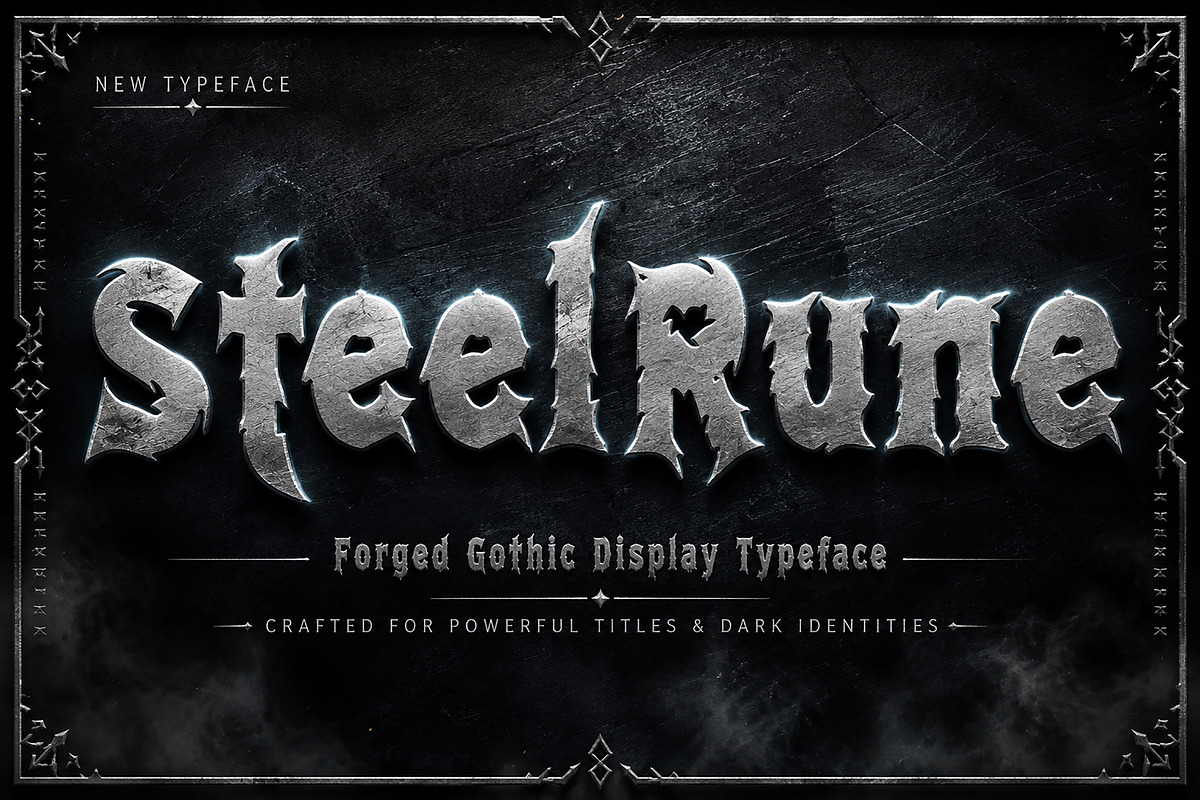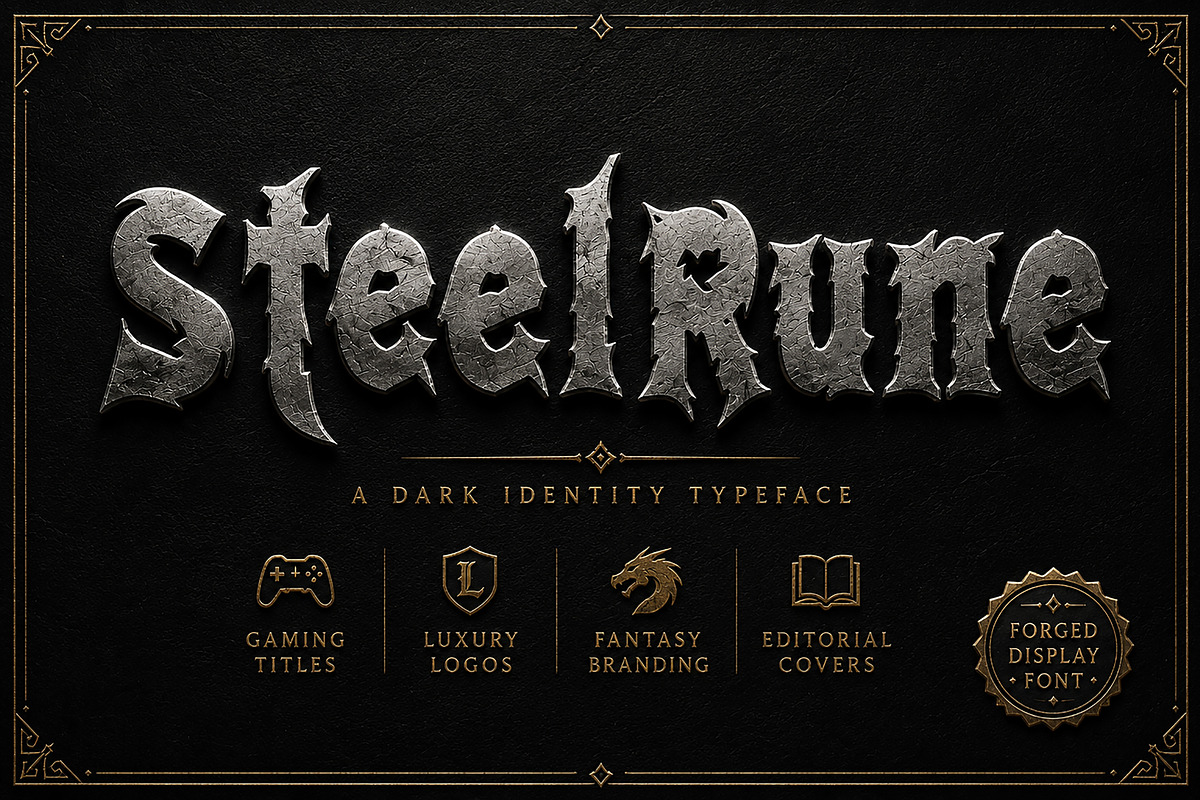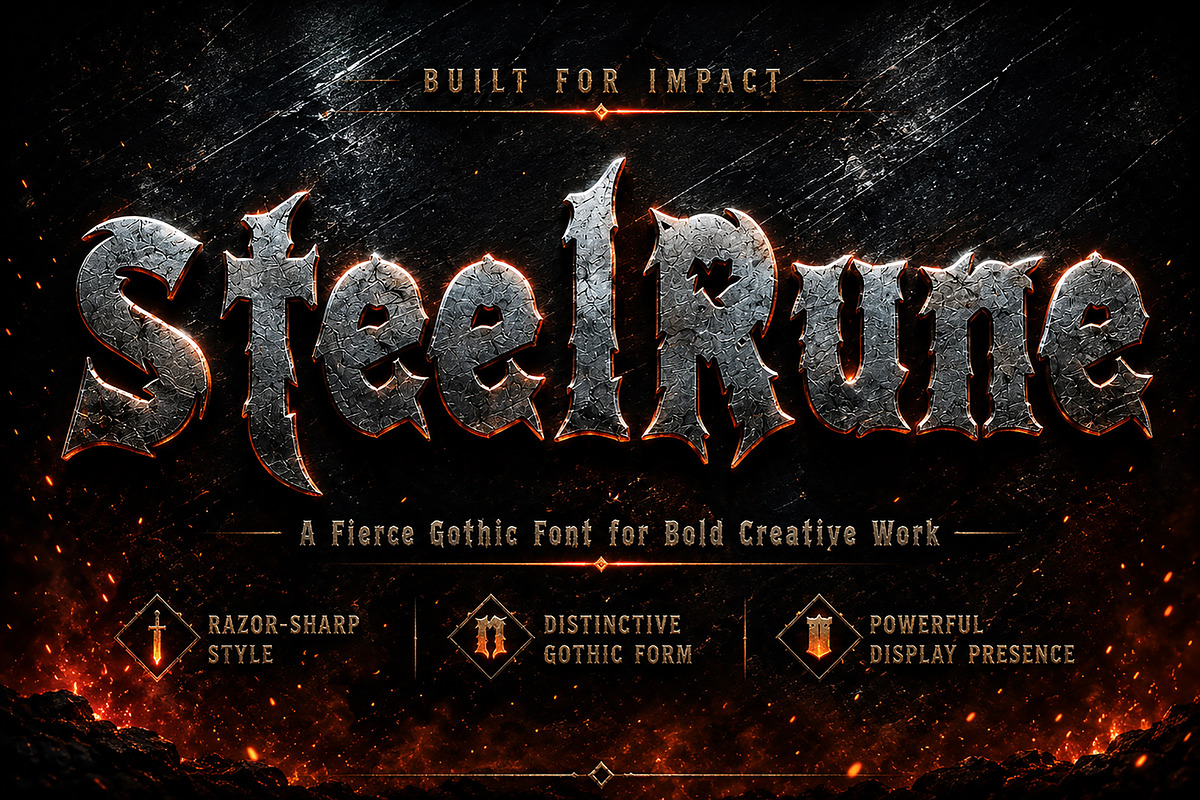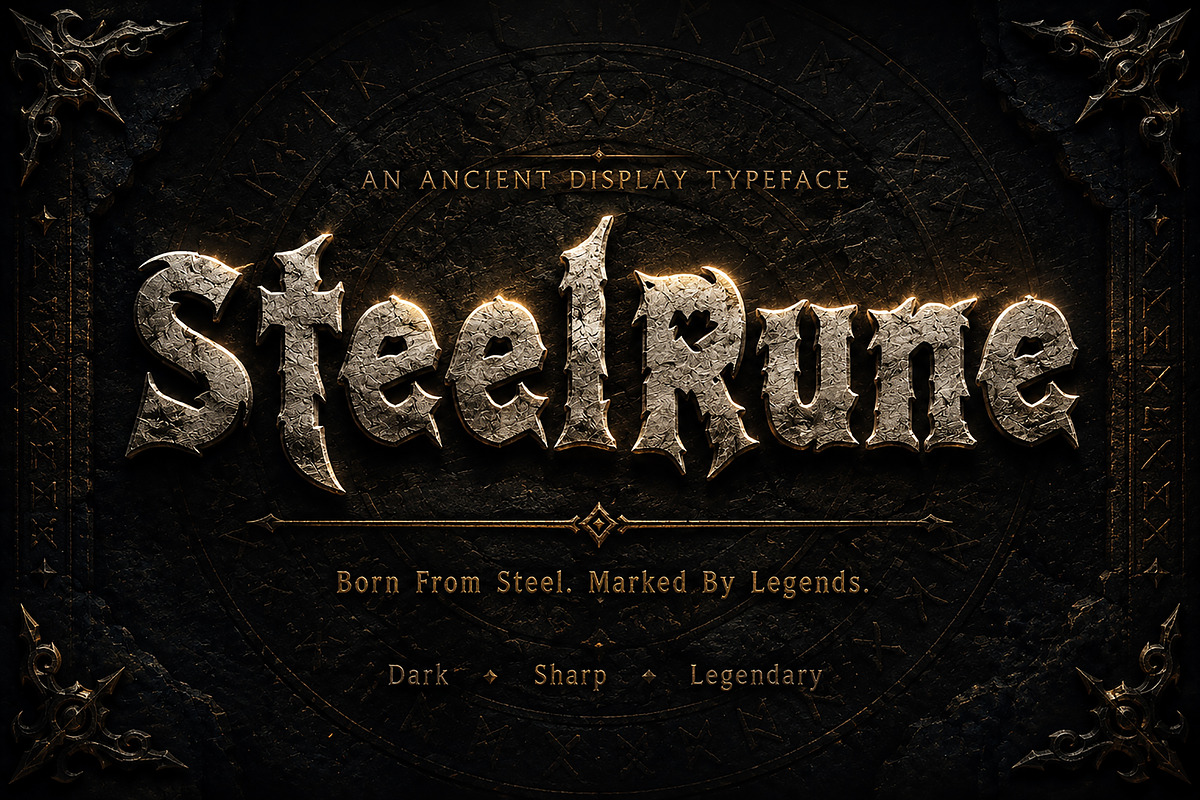
SteelRune – Gothic Display Font
SteelRune is a bold and powerful gothic display font inspired by medieval legends, ancient runes, and forged steel. Designed with sharp handcrafted details and dramatic letterforms, this typeface brings a dark, premium, and unforgettable personality to your creative projects.
Whether you're creating game titles, fantasy branding, book covers, posters, apparel, or logo designs, SteelRune delivers a strong visual impact with its distinctive gothic style. Every character has been carefully crafted to create a professional display font that stands out in both digital and print designs.
If you're looking for a typeface that combines medieval aesthetics with modern craftsmanship, SteelRune is the perfect choice.
Logos
Gaming Titles
Fantasy Branding
Movie Titles
Posters
Album Covers
Packaging
T-Shirt Designs
Editorial Covers
Halloween Designs
YouTube Thumbnails
Stream Graphics
Medieval-Themed Projects